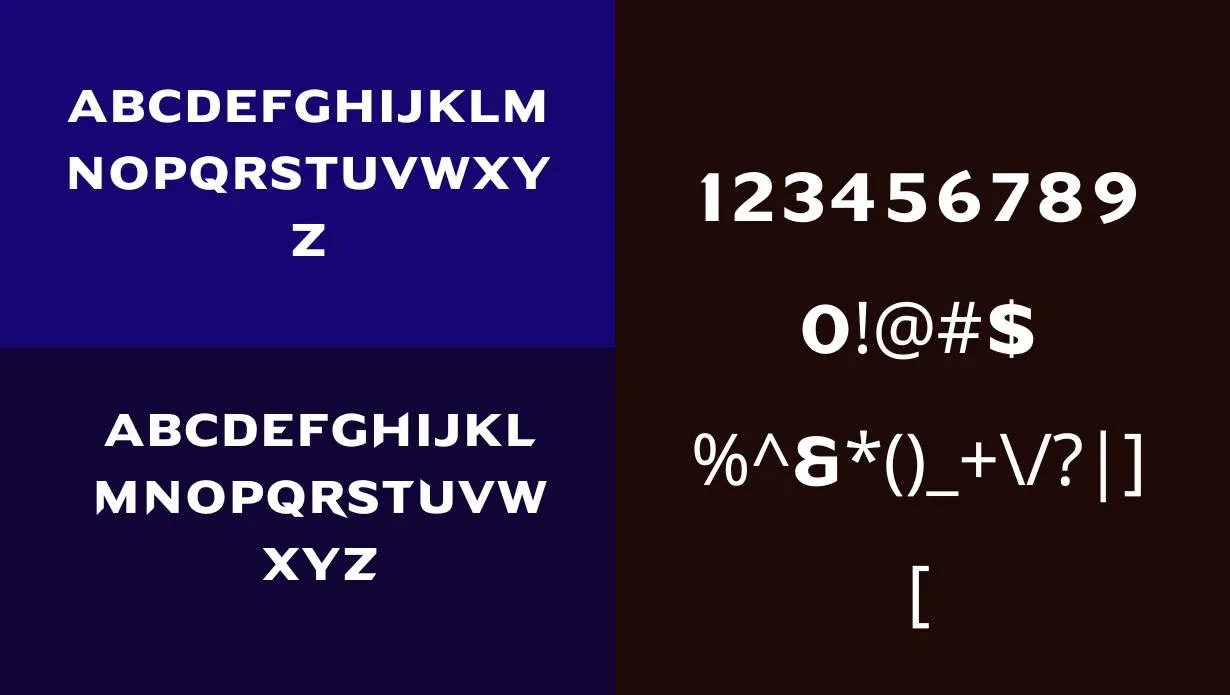
Dark Universe Font is a strong and creative font that is commonly utilized in projects where a bold and unforgettable visual impact is needed.
The unique texture of this typeface is a magnet for creators, and there is a selection of other fantastic typefaces, like Lipstick Font and Baby Chipmunk Font, for you to explore. Its robust letterforms add an element of power and presence to your designs.
Dark Universe Font Family